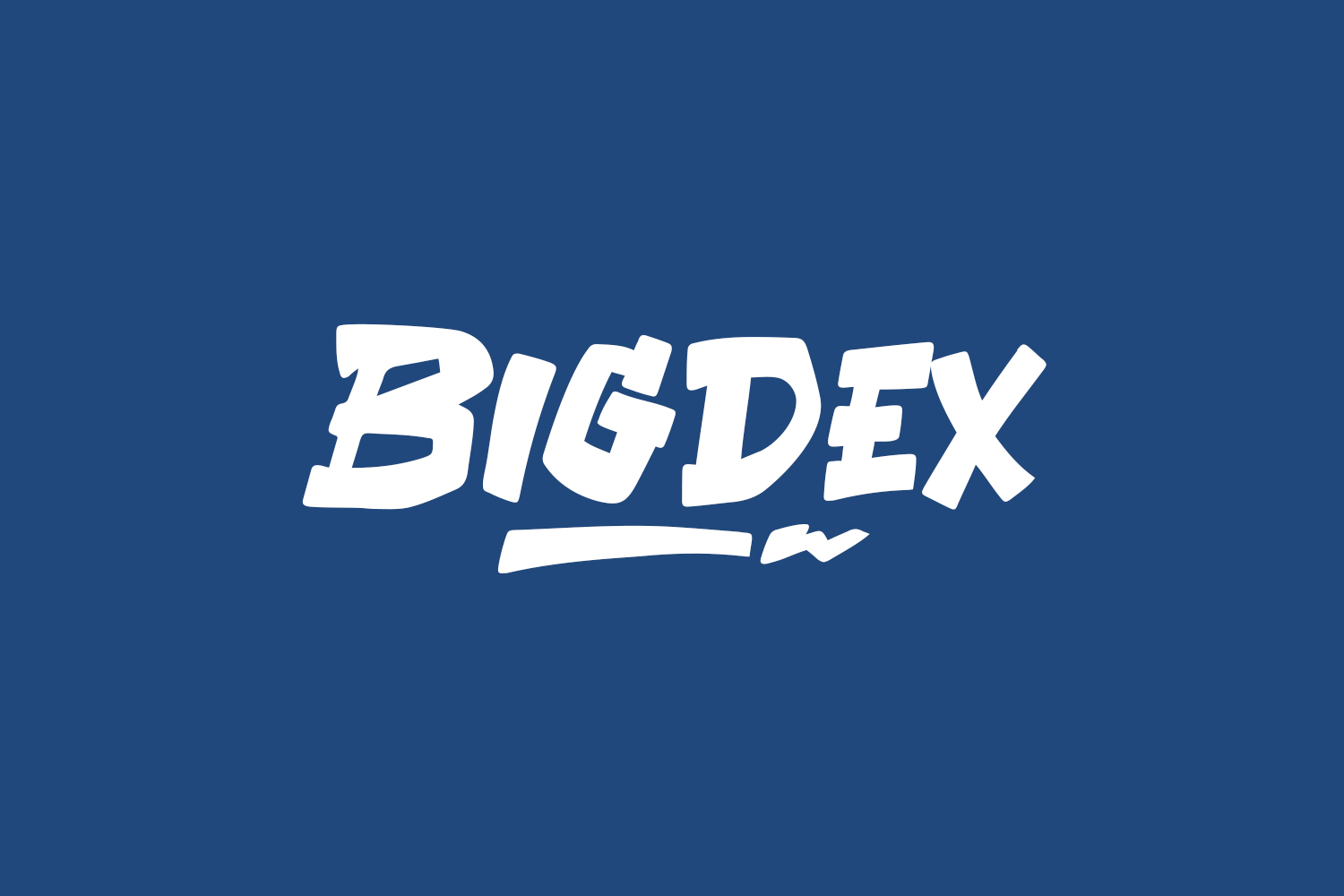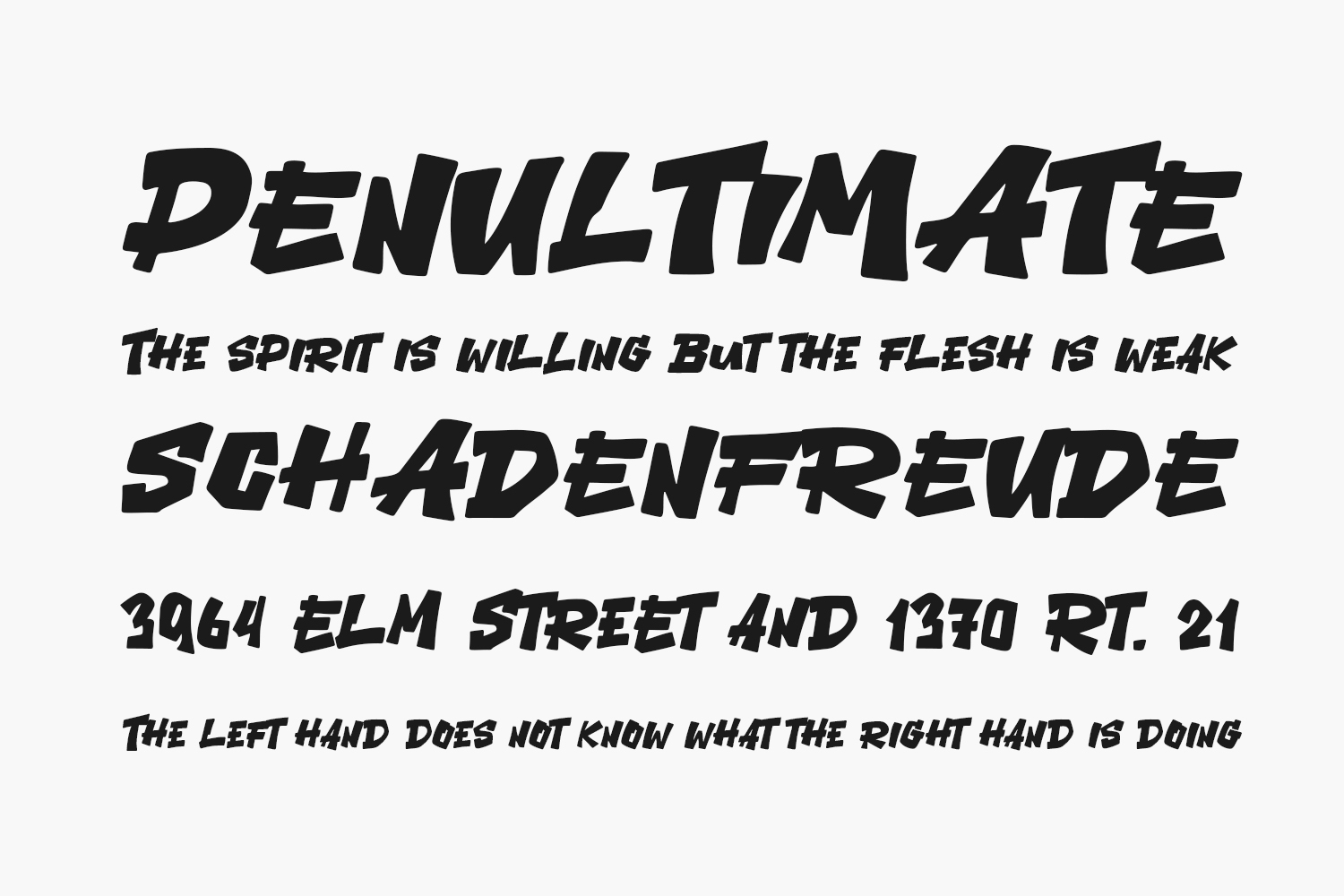
Bigdex Free Font stands as a contemporary, bold display font that’s an ideal fit for various design projects like posters, logos, magazines, book covers, banners, and more! Embrace this unique and playful handwritten font to infuse charm into your designs. Its adaptability to a wide array of projects ensures a seamless blend, giving your creative ideas the spotlight they deserve. Integrate Bigdex into your projects and witness how it sets them apart with its distinctive appeal. Bigdex Free Font is free for personal or commercial use.